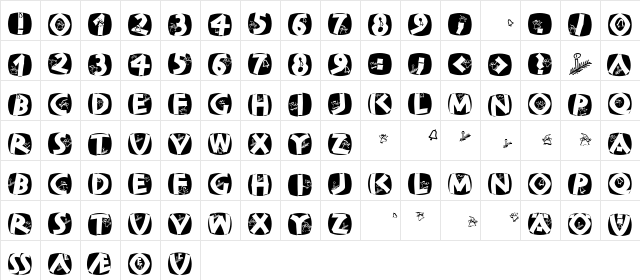
ClassiCapsXmas2002 Regular
Design Context for ClassiCapsXmas2002 Typeface
ClassiCapsXmas2002 has the warm character of retro typography — evoking diners, record sleeves, and the golden age of print advertising.
Font Pairing: Combine ClassiCapsXmas2002 with a simple slab or neutral sans — period-accurate companions reinforce the vintage feel without competing for attention.
Pro Tip: Use ClassiCapsXmas2002 for headlines and pull quotes rather than body copy — its personality is best appreciated in short, focused bursts.